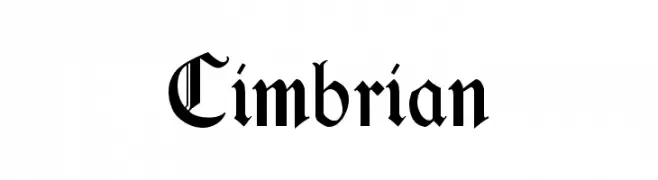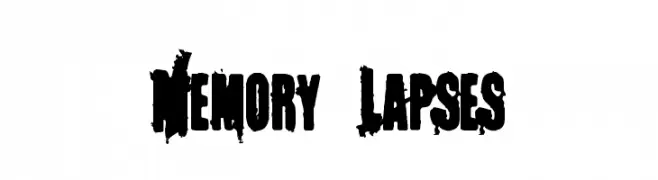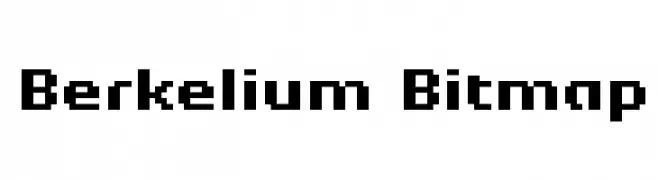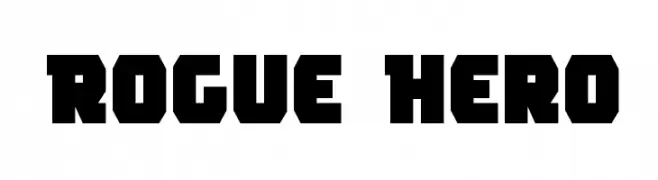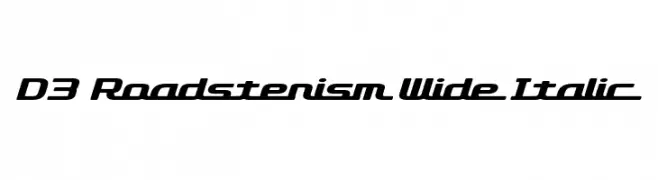
A decorative blackletter font with intricate details and a classic, historical style.
A bold, distressed font with a grungy, textured appearance.
A pixelated, retro-style font with a digital, blocky appearance.
A bold, geometric font with strong, angular shapes and a modern-retro vibe.
A modern, wide italic font with a bold, futuristic style.